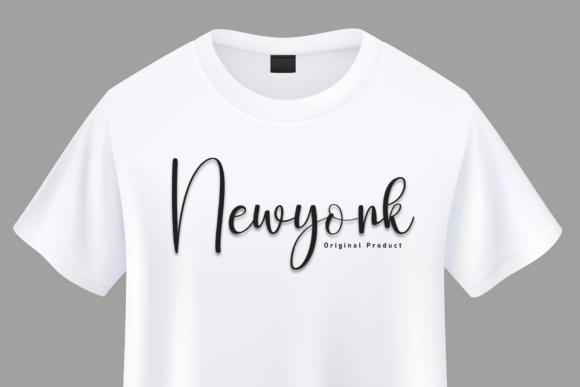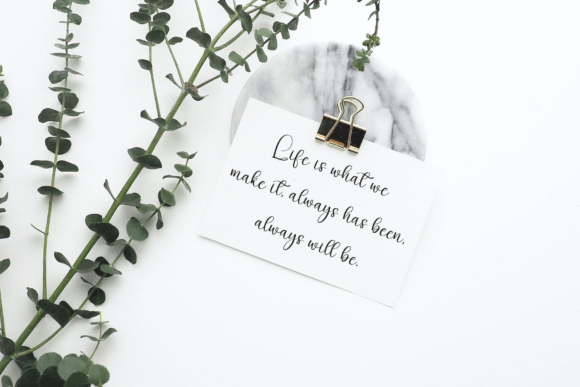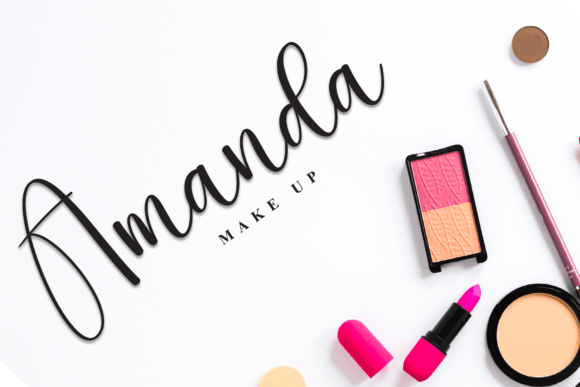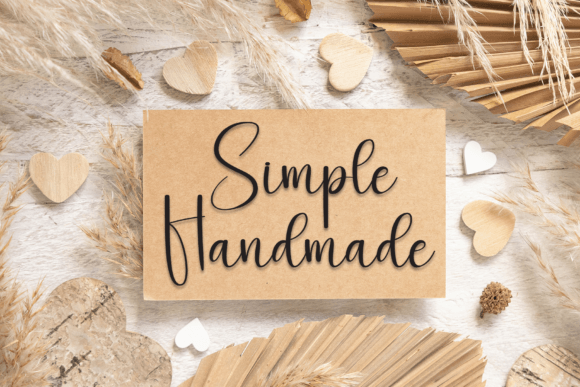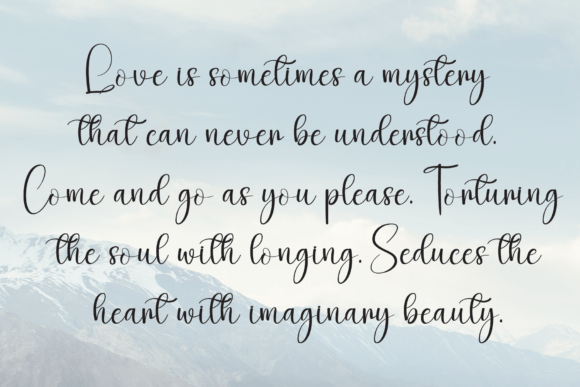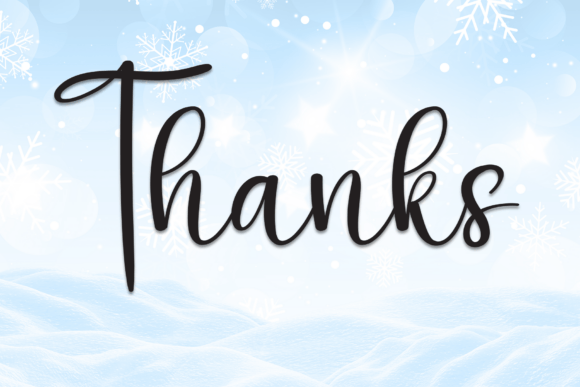
Introducing Chilly Christmas Font: The Sweet and Friendly Handwritten Font for Your Holiday Designs
Are you looking for a font that captures the essence of the holiday season? Do you want to add a personal touch to your Christmas designs, but can’t seem to find the perfect fit? Look no further than Chilly Christmas Font, a sweet and friendly handwritten font that’s sure to make your designs shine.
What Makes Chilly Christmas Font So Special?
Chilly Christmas Font is a unique and natural handwritten font that’s perfect for a wide range of designs. Its sweet and friendly style makes it incredibly fitting for holiday-themed projects, but it’s versatile enough to be used for a variety of other designs as well. Whether you’re creating Christmas cards, holiday gift tags, or festive social media graphics, Chilly Christmas Font is the perfect choice.
Key Features of Chilly Christmas Font
- Handwritten style: Chilly Christmas Font has a natural, handwritten look that’s perfect for adding a personal touch to your designs.
- Unique and distinctive: This font has a unique style that’s sure to make your designs stand out from the crowd.
- Versatile: Chilly Christmas Font can be used for a wide range of designs, from holiday-themed projects to everyday crafts.
- Easy to read: Despite its handwritten style, Chilly Christmas Font is easy to read and understand, making it perfect for use in a variety of contexts.
How to Use Chilly Christmas Font in Your Designs
Chilly Christmas Font is incredibly easy to use, and can be incorporated into a wide range of designs. Here are a few ideas to get you started:
- Christmas cards and invitations: Use Chilly Christmas Font to create personalized and festive holiday cards and invitations.
- Holiday gift tags: Add a personal touch to your holiday gifts with Chilly Christmas Font, perfect for gift tags and labels.
- Social media graphics: Use Chilly Christmas Font to create festive and engaging social media graphics, perfect for holiday promotions and announcements.
- Craft projects: Chilly Christmas Font is perfect for a wide range of craft projects, from scrapbooking to papercrafting.
Tips and Tricks for Getting the Most Out of Chilly Christmas Font
Here are a few tips and tricks for getting the most out of Chilly Christmas Font:
- Experiment with different colors: Chilly Christmas Font looks great in a variety of colors, so don’t be afraid to experiment and find the perfect hue for your design.
- Mix and match with other fonts: Chilly Christmas Font pairs well with a variety of other fonts, so feel free to mix and match to create a unique look.
- Use it for headlines and titles: Chilly Christmas Font is perfect for use in headlines and titles, where its unique and distinctive style can really shine.
Chilly Christmas Font is a sweet and friendly handwritten font that’s perfect for adding a personal touch to your holiday designs. Its unique and natural style makes it incredibly versatile, and it’s easy to use in a wide range of contexts. Whether you’re a designer, crafter, or simply someone who loves the holiday season, Chilly Christmas Font is sure to become a favorite in your collection.